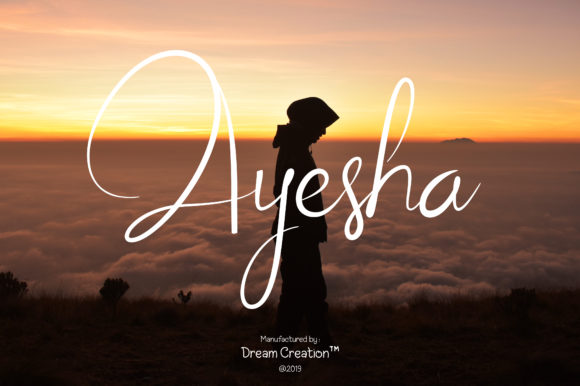
Ayesha Script Font
About Ayesha Script Font
The Ayesha is a type of font that looks pretty smooth and dynamic at the same time. It’s perfect for fashion brands, movie titles, posters, invitations, and much more!